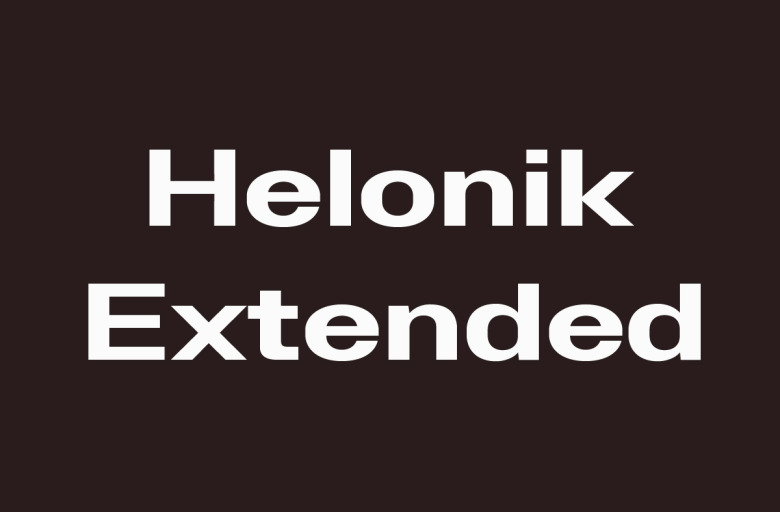
Helonik Extended Font
Helonik Extended Font is a modern sans-serif with a geometric touch that support for 87 languages. It comes in 11 weights, 22 uprights and its matching obliques, outlines, so you can use them to your heart’s content, in each of which there are more than 797+ glyphs.
Perfectly suited for graphic design and any display use. It could easily work for branding, web, signage, corporate as well as for editorial design. documents and folders, mobile interface.
Helonik Extended Sans Serif Font